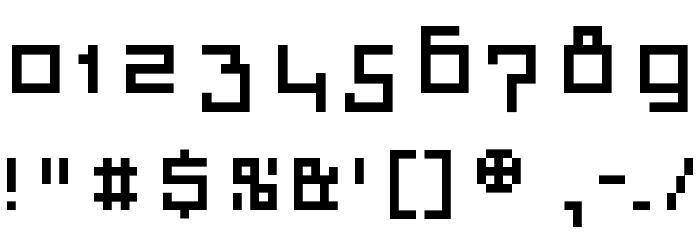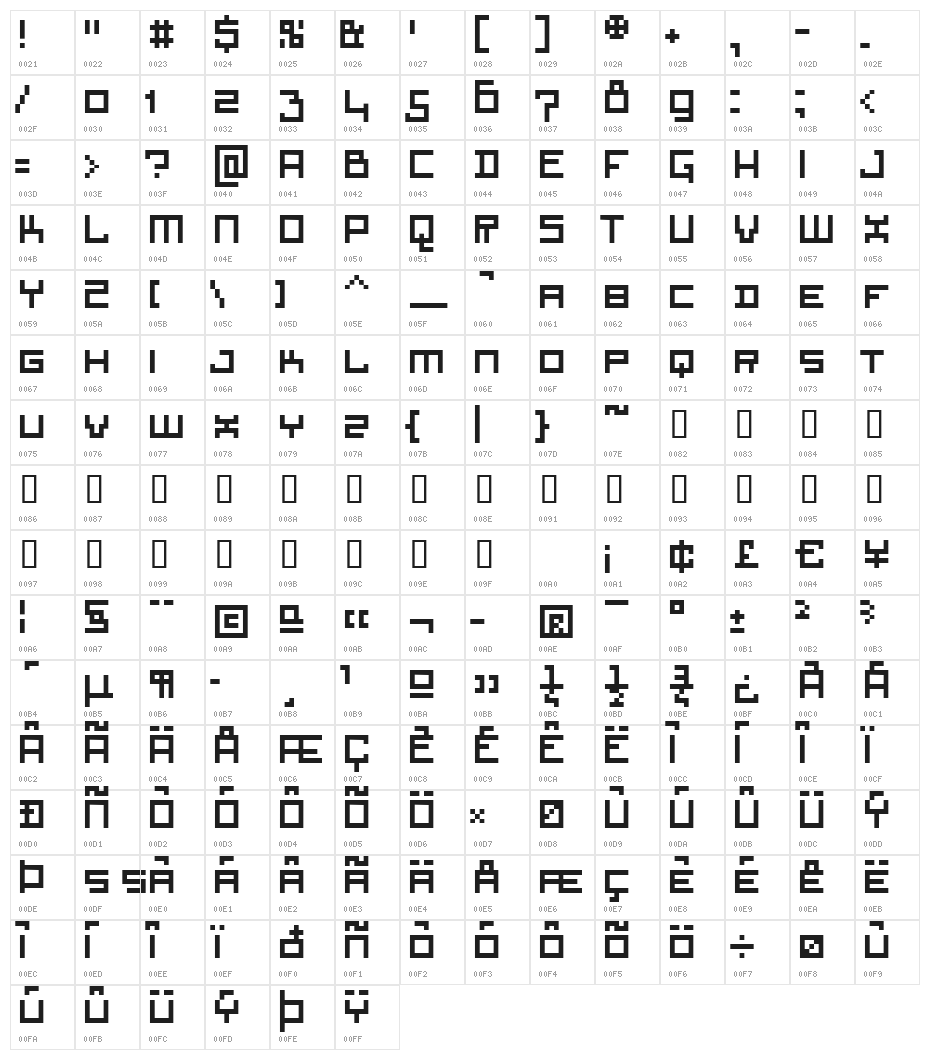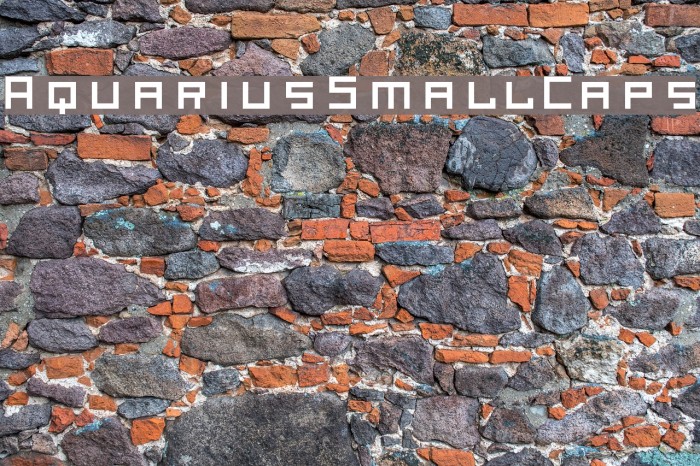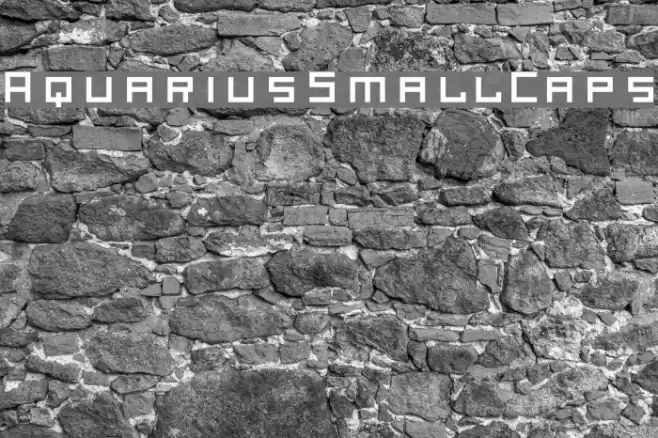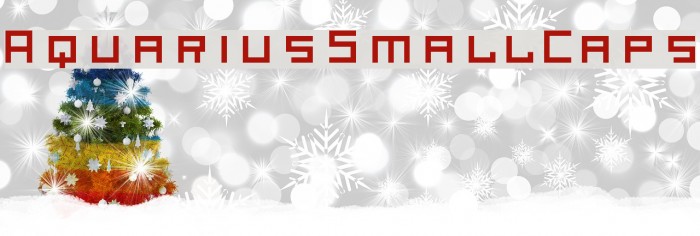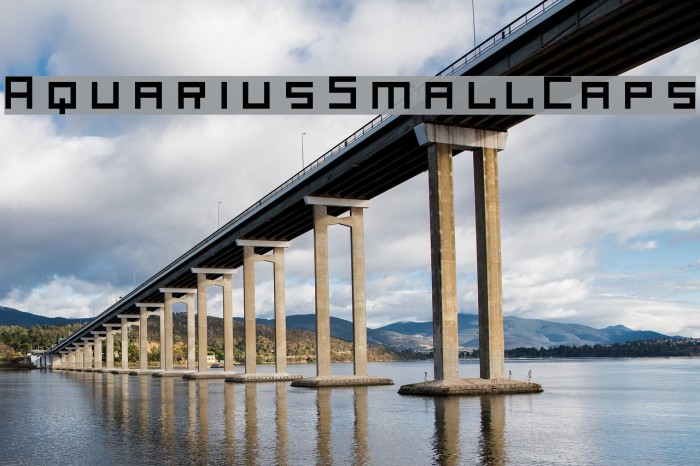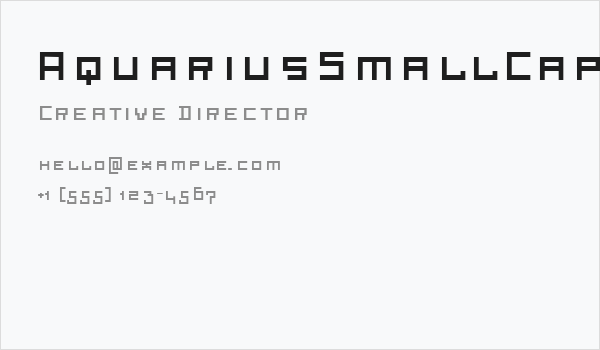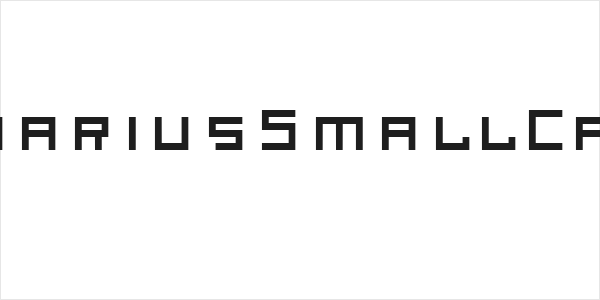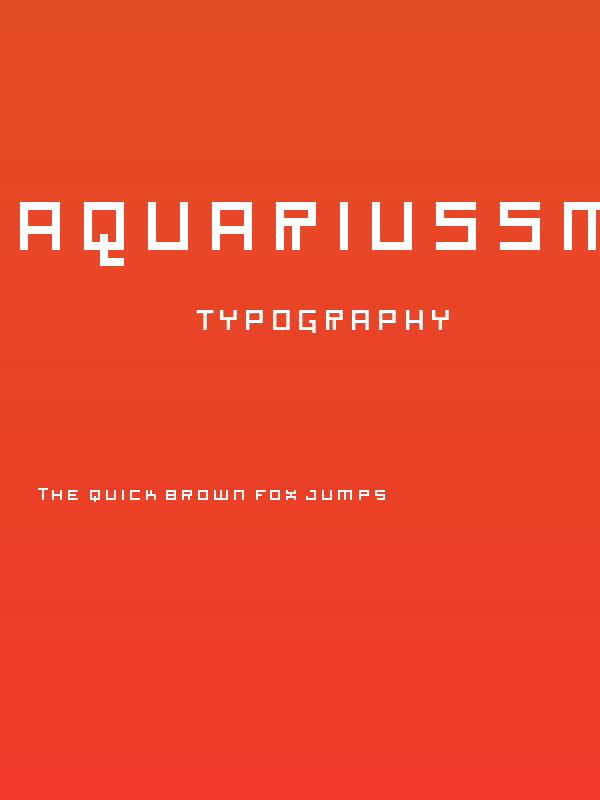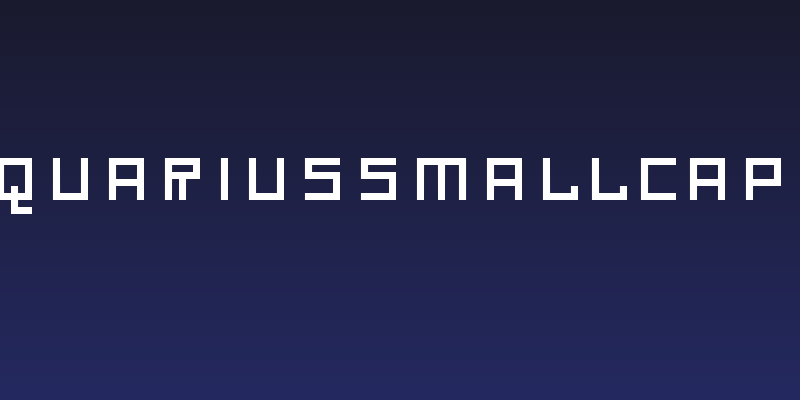
AquariusSmallCaps Font
AquariusSmallCaps Description
This font features a pixelated, blocky design reminiscent of early digital or video game typography. Each character is composed of square, uniform strokes, giving it a distinctly geometric and retro appearance. The uppercase and lowercase letters maintain a consistent height, emphasizing its monospaced nature. The numerals and special characters follow the same stylistic approach, ensuring uniformity across all glyphs. This font's simplicity and clarity make it highly legible, even at smaller sizes, while its unique style adds a nostalgic charm.
| Overall Style | Retro |
| Use Case | Logos, Headlines, Digital displays |
| Proposed Projects | Ideal for video game design, retro-themed posters, digital art, and any project seeking a nostalgic or tech-inspired look. |